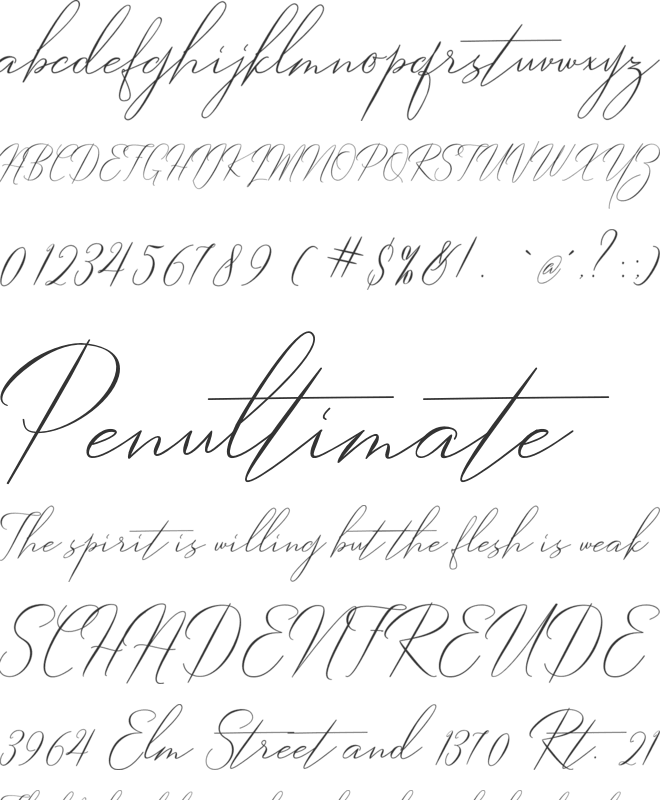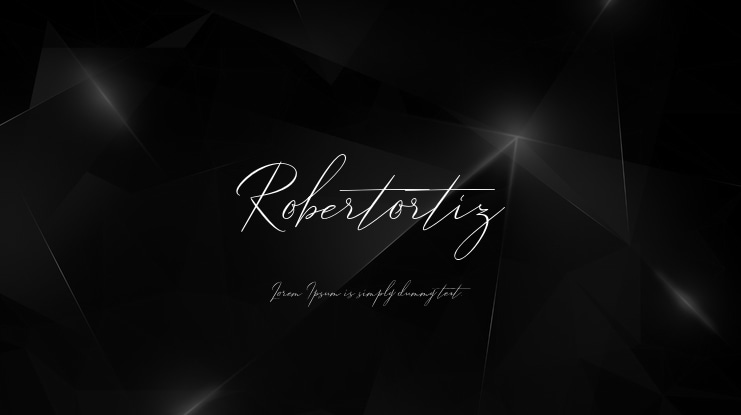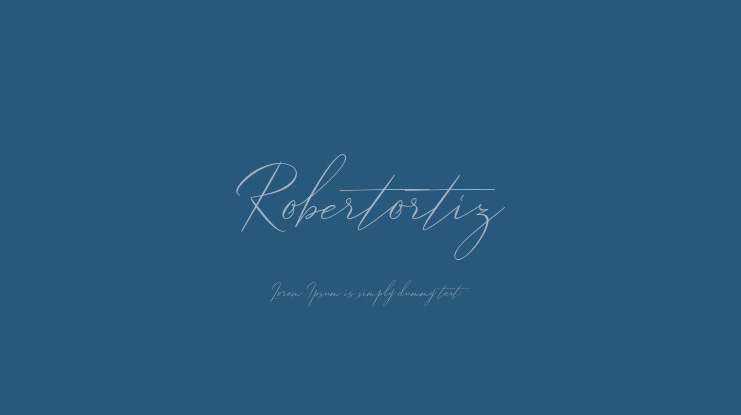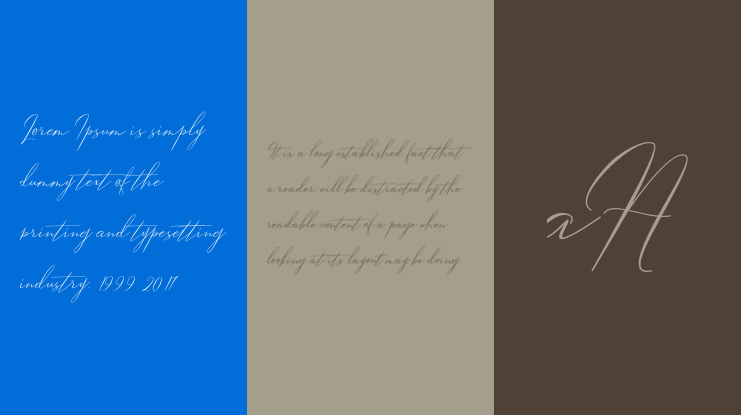
Robertortiz Font
Hello Font Lovers... Robertortiz is another lovely modern signature font, which is combining the style of classic calligraphy with an modern style. combines from copperplate to contemporary typeface with a dancing baseline, modern and elegant touch. including alternates, and ligatures.Files Robertortiz included:Robertortiz (TTF)Robertortiz (OTF)Languages supported:Breton, Catalan, Czech, Danish, Estonian,French, German, Hungarian, Icelandic, Italian, Romanian, Scottish Gaelic, Slovak, Latvian, Lithuanian, Norwegian, English, Finnish, Polish, Portuguese, Slovenian, Spanish, Swedish, Turkish, Welsh. Basically, all european languages that are based on latin alphabetCan be used for various purposes.such as headings, logos, wedding invitation, t-shirt, letterhead, lable, news, posters, badges etc.To enable the OpenType Stylistic alternates, you need a program that supports OpenType features such as Adobe Illustrator CS/CC, Adobe Indesign CS/CC, Adobe Photoshop CS/CC, CorelDraw X6-X7 & Microsoft Office. a font that made the hand by having the character up and down like a dancer. Freestyle has a very unique style of signature, it is very suitable for use in the work of modern design.THANK YOU SO MUCH